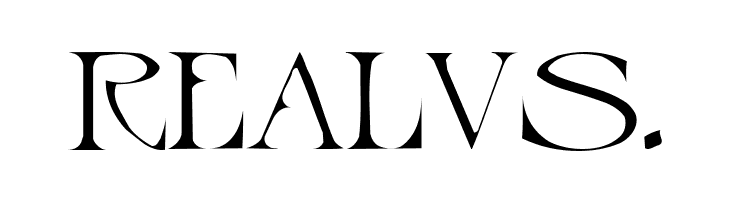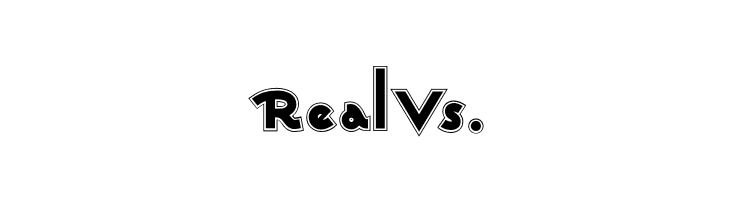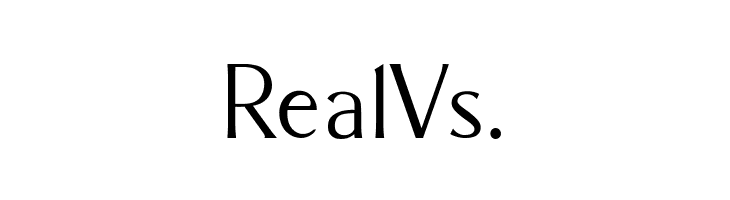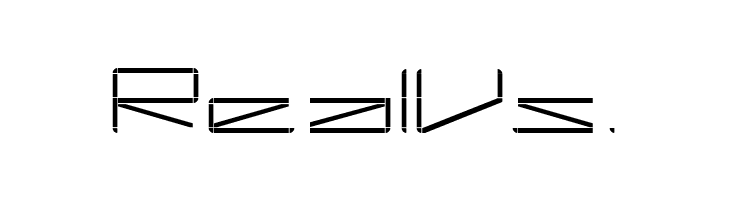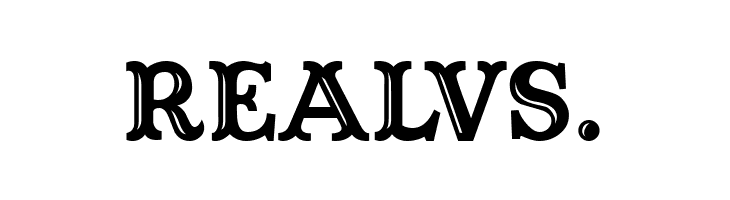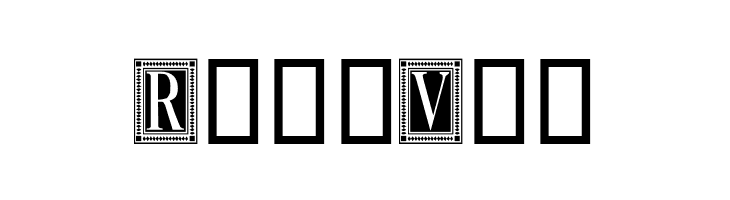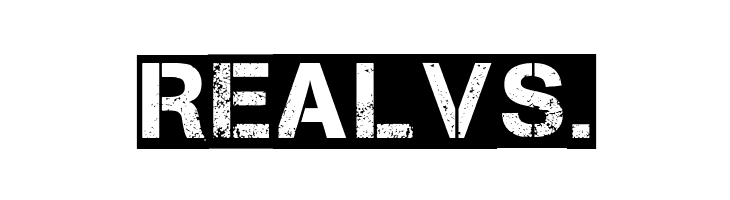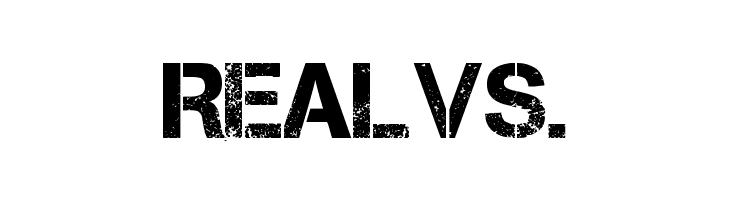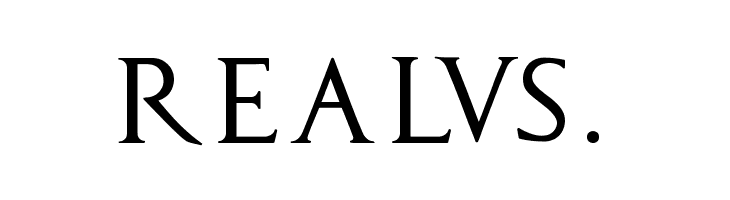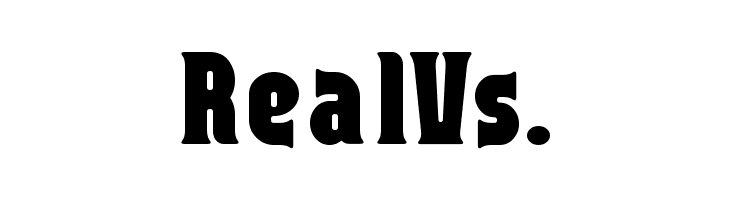
• CantzleyInverseCaps
An ornate, calligraphy-inspired font with circular enclosures and decorative flourishes.
• CanyonRoad
A decorative geometric pattern font with Southwestern influences.
• Capacitor
• Capital Daren Italic
A bold, italicized font with a dynamic and modern style.
• Capital Daren Regular
A bold, blocky font with a strong, modern presence.
• Capitalia Rounded Regular
A modern, rounded font with a sleek, condensed style.
• Capitalis Pirata
• Capitalist
• CapitalisTypOasisMedium
A classic serif font with elegant, Roman-inspired details.
• Capitol Deco
A bold Art Deco style font with geometric shapes and strong vertical lines.
• Capitular Floral
• Capitular Moldurada
• Capitular Moldurada 2
• CAPlushy
A dynamic, brush-style font with expressive, hand-drawn strokes.
• Caprice
A whimsical, hand-drawn font with playful, irregular strokes and artistic flair.
• Capsies
• CapsRandomish
An intricate and decorative font with ornate patterns and high contrast.
• CapsRandomishBricks
An ornate, geometric font with intricate patterns and uppercase letters.
• Captain Howdy
• Captain Kidd Demo
A bold, pirate-themed font with sharp serifs and a distressed appearance.
• Captain Swabby NF
A bold, nautical-themed font with playful, three-dimensional characters.
• Captain's Table